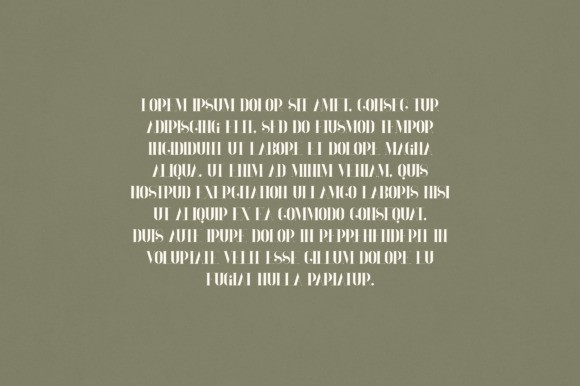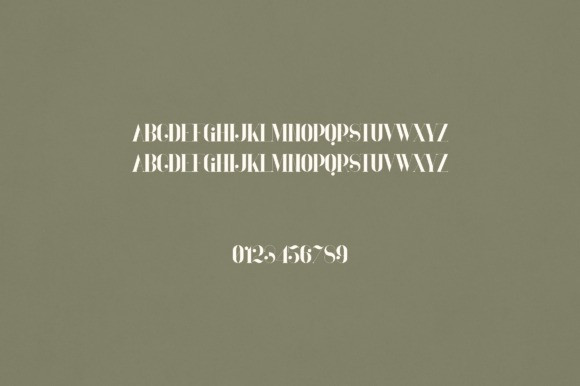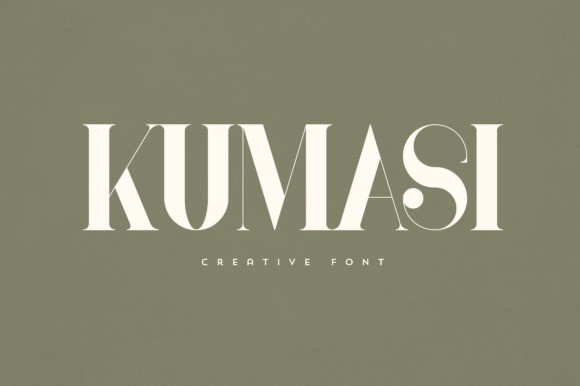
Kumasi Font
Kumasi Font is an elegant and versatile serif font that will make your typography truly unique! It will enchant every logo, branding, headline, or plain text!